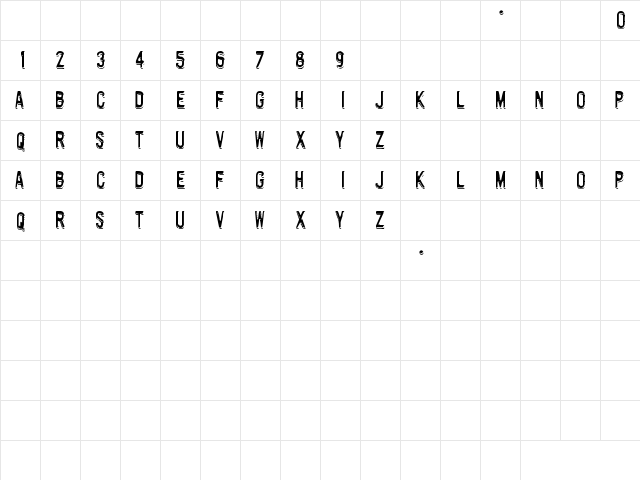
Motorway Regular
Design Context for Motorway Typeface
Motorway takes a measured approach to typography — its balanced proportions and neutral character make it a reliable workhorse for both digital and print work.
Pro Tip: Use Motorway in both headline and body roles to test its range before committing to a single application.